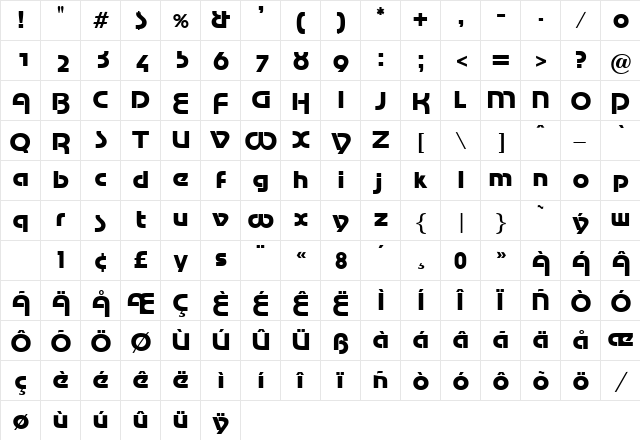
Marina DB Regular
Design Context for Marina DB Typeface
Marina DB is a composed and adaptable typeface that performs quietly and consistently across a wide range of design contexts.